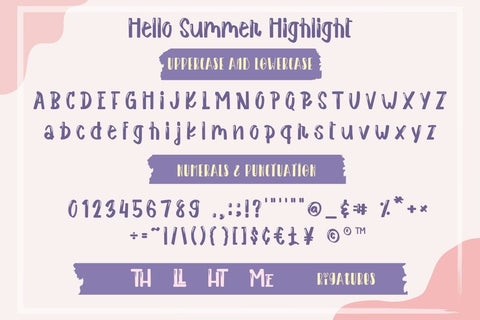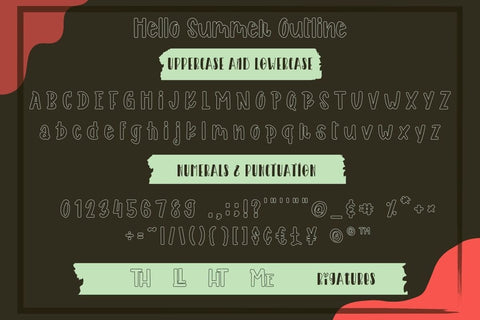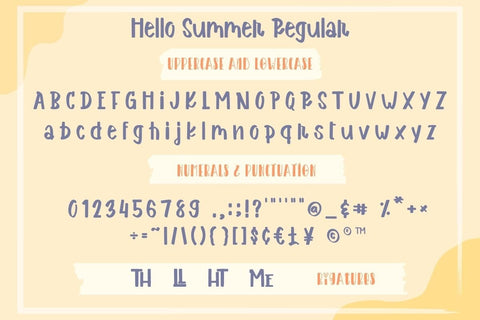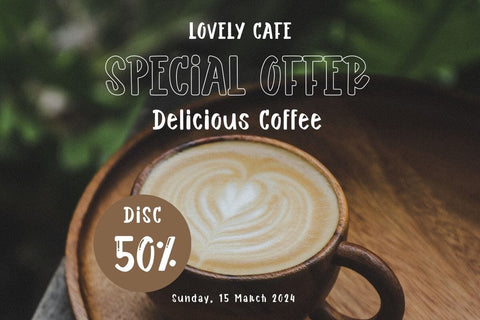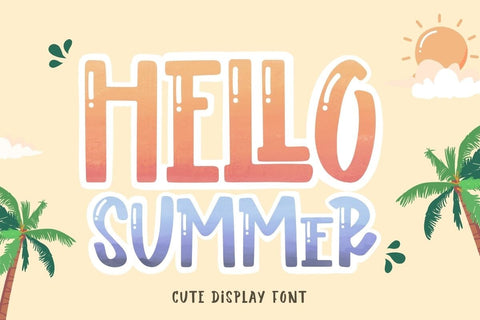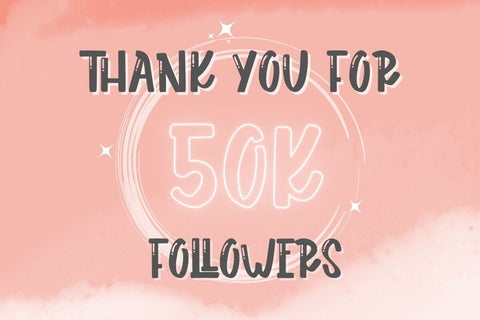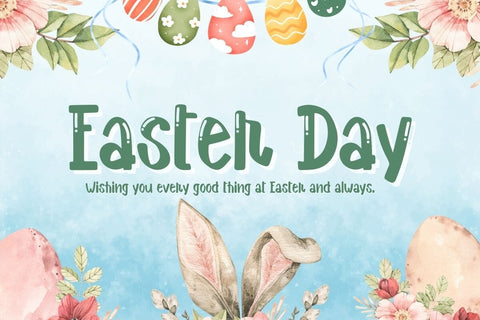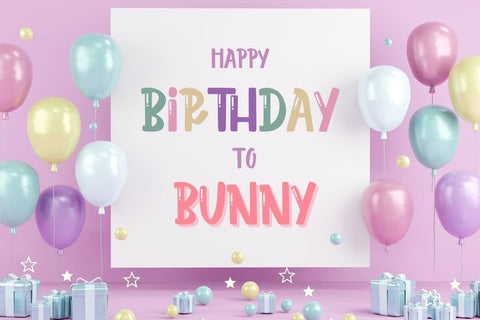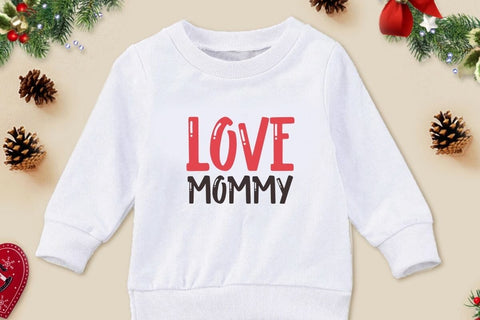
Hello Summer - Display Font
Hello Summer is a cute display font that will help you enjoy and have fun with your designs. Perfect for creating a wide variety of new designs to match products such as banners, content, mugs, cards, shirts, stationery, social media posts, and more!